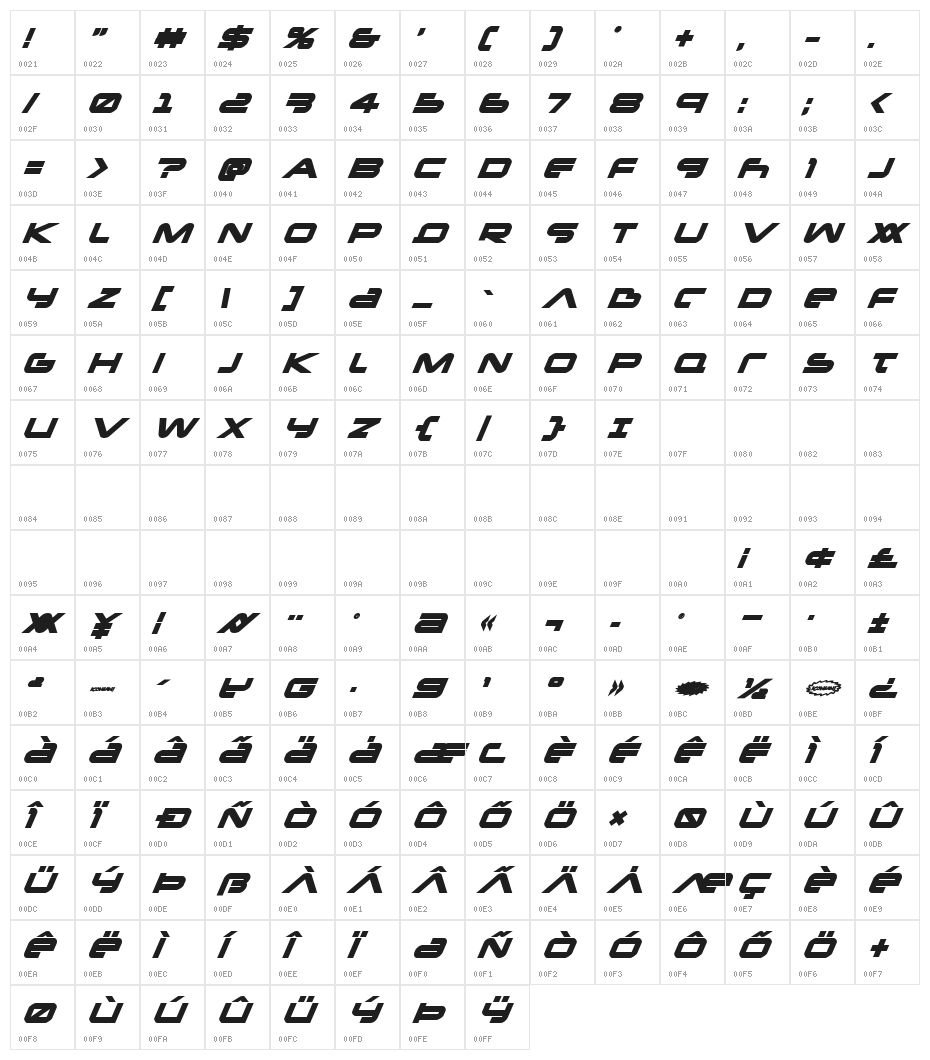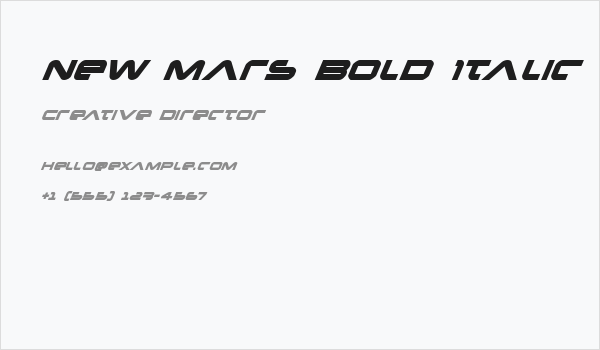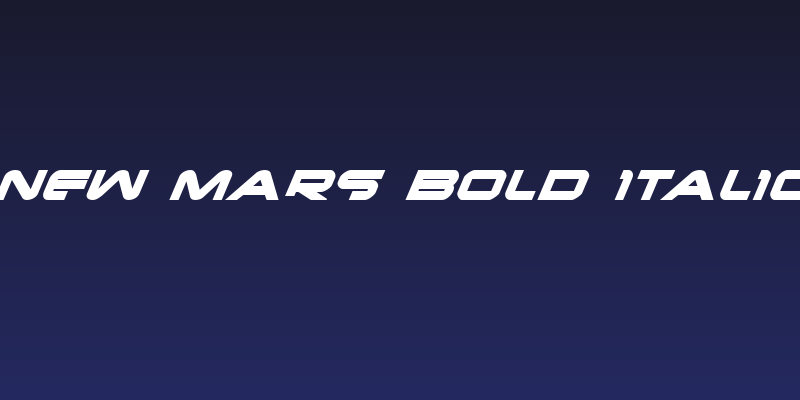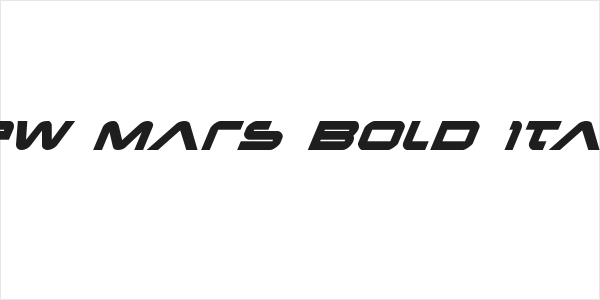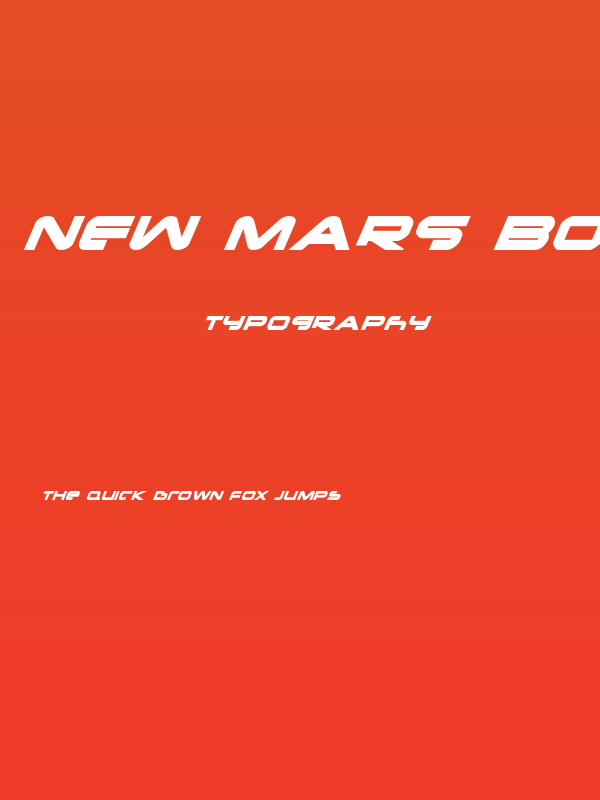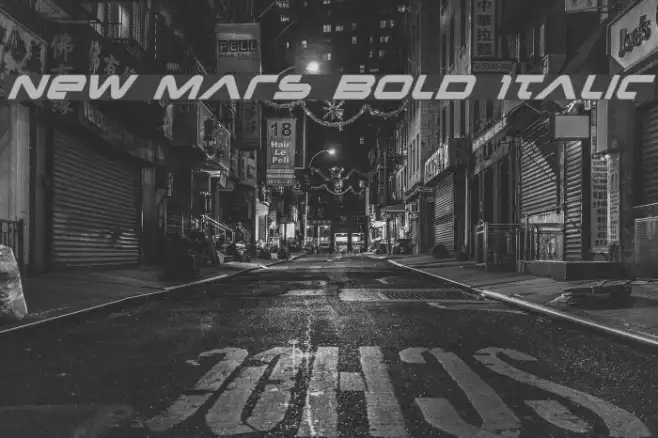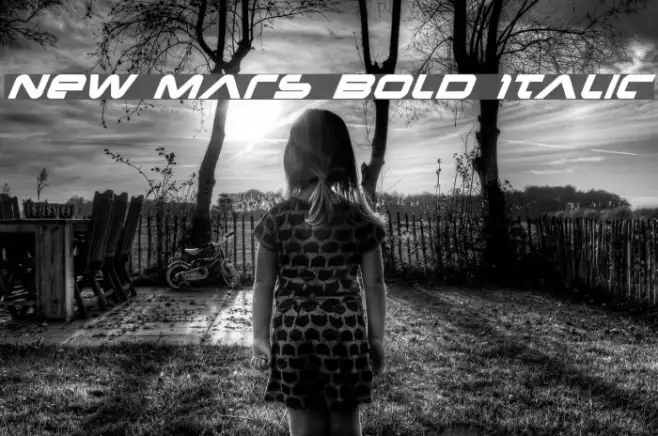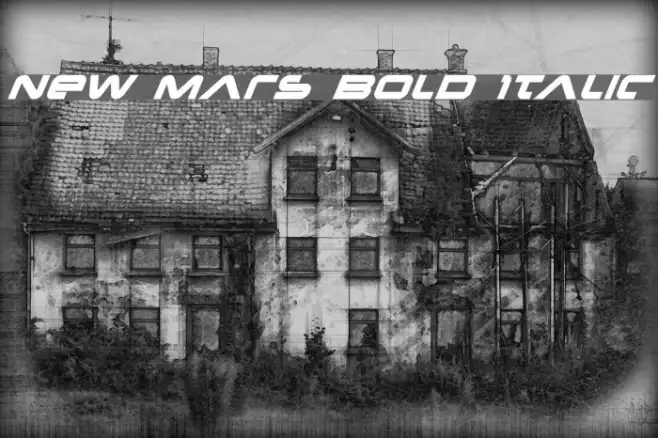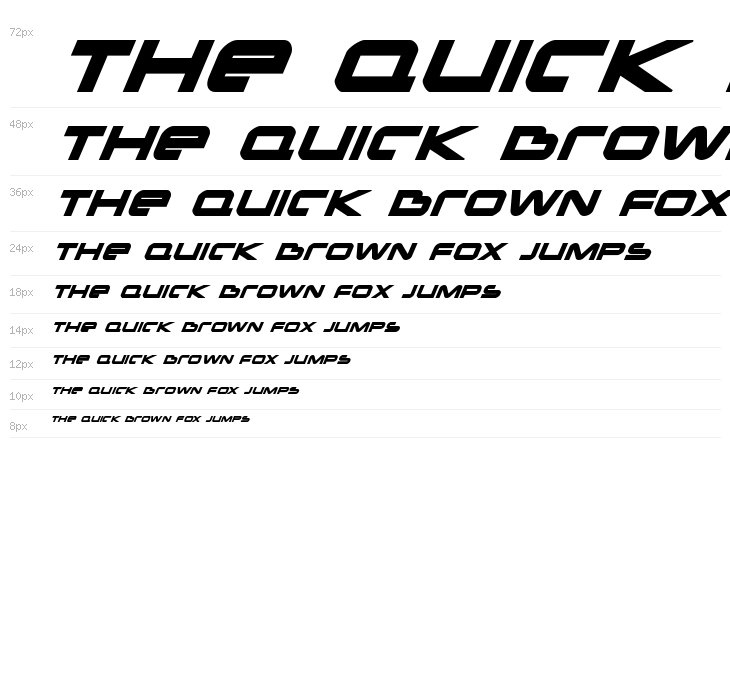
New Mars Bold Italic Font
New Mars Bold Italic Description
This font exhibits a futuristic and dynamic style, characterized by its bold and italicized form. The letters are slanted forward, giving a sense of motion and speed. The strokes are thick and consistent, providing a strong visual impact. The design features sharp angles and clean lines, creating a modern and sleek appearance. The numbers and special characters follow the same stylistic approach, ensuring uniformity across all elements. This font is ideal for projects that require a contemporary and energetic look.
| Proposed Projects | Ideal for sci-fi movie posters, technology branding, video game titles, and sports team logos. |